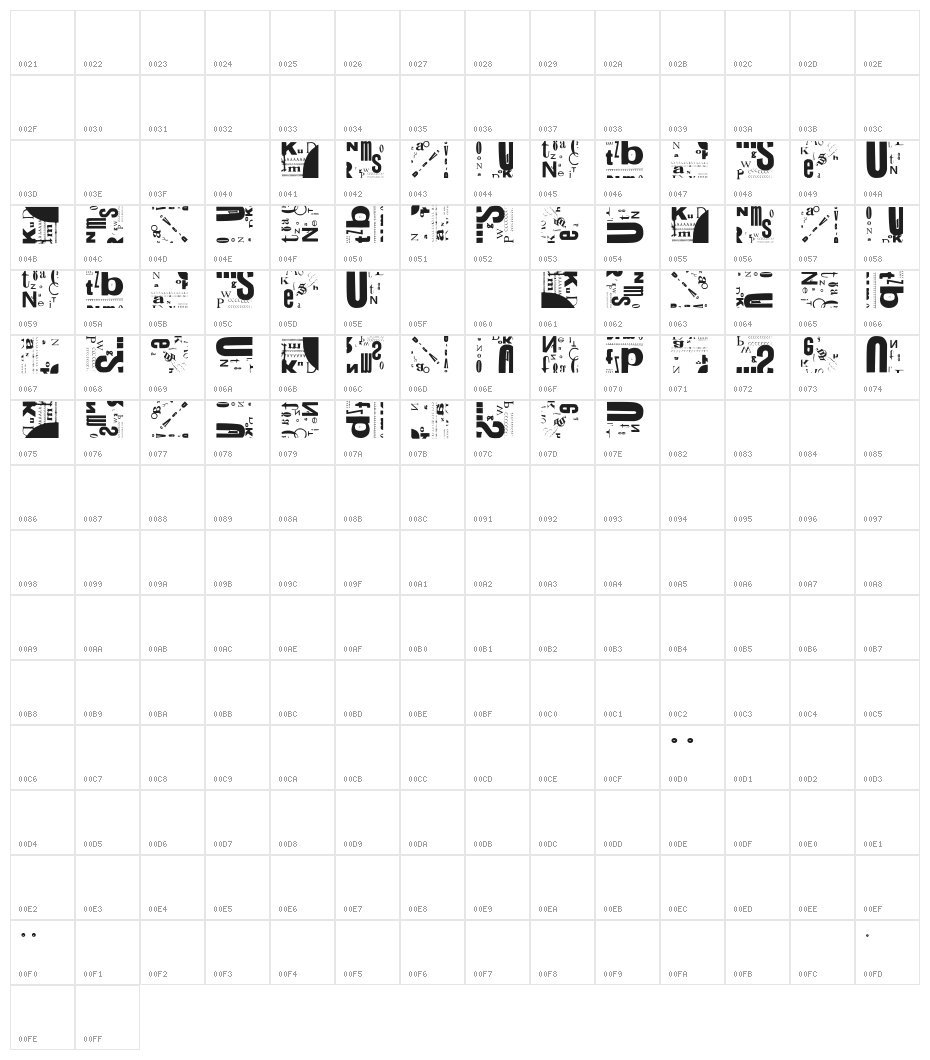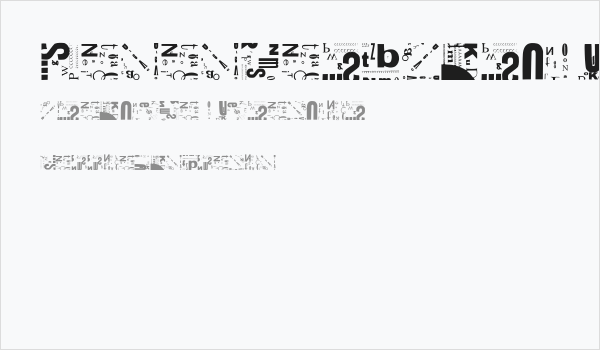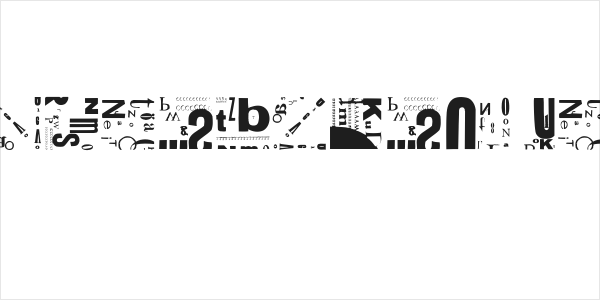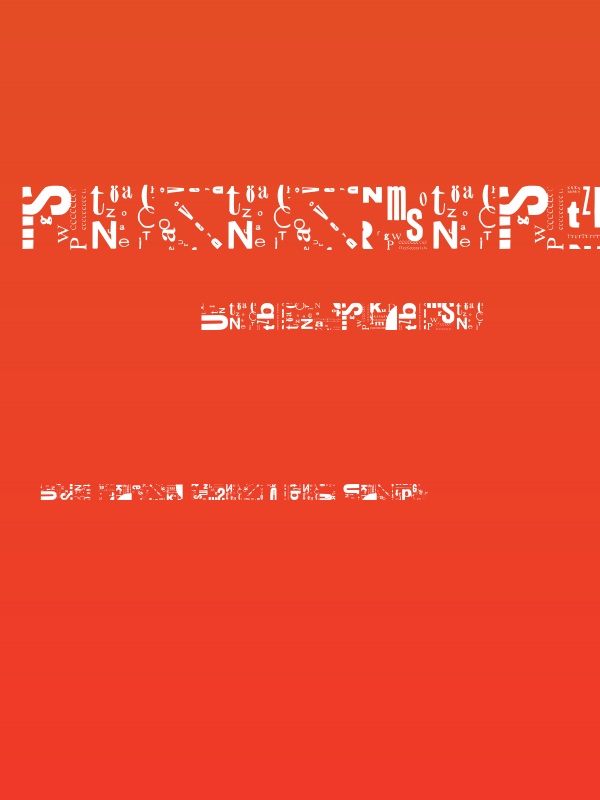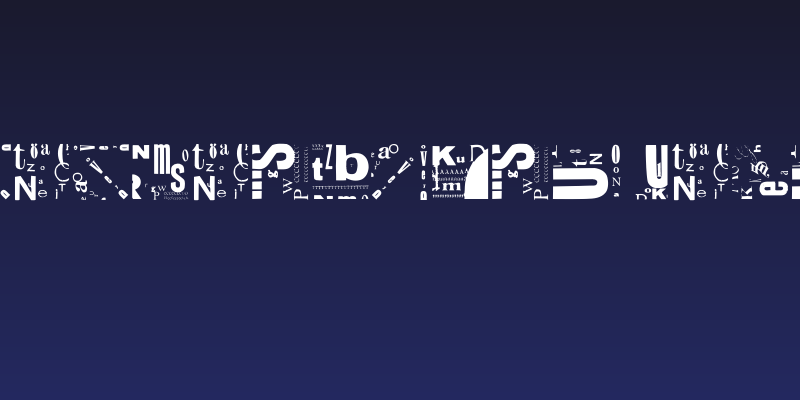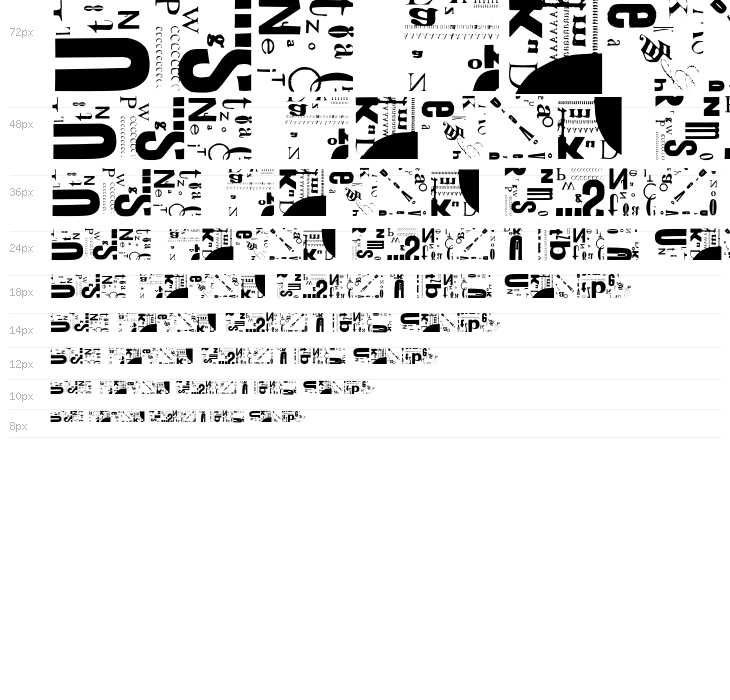
RememberZwartDeStjl Font
RememberZwartDeStjl Description
This font is a highly decorative and abstract design, characterized by its chaotic and fragmented appearance. Each character is composed of various geometric shapes, lines, and patterns, creating a collage-like effect. The letters are not uniform, with some parts being bold and others thin, contributing to a dynamic and visually striking style. This font challenges traditional readability, making it more suitable for artistic and experimental projects. The overall aesthetic is reminiscent of avant-garde and modernist art movements, with a strong emphasis on visual impact over legibility.
| Overall Style | Avant-garde, Artistic, Modernist |
| Use Case | Artistic displays, Experimental design, Posters |
| Proposed Projects | Ideal for experimental art projects, avant-garde posters, album covers, and any design work where visual impact is prioritized over readability. |